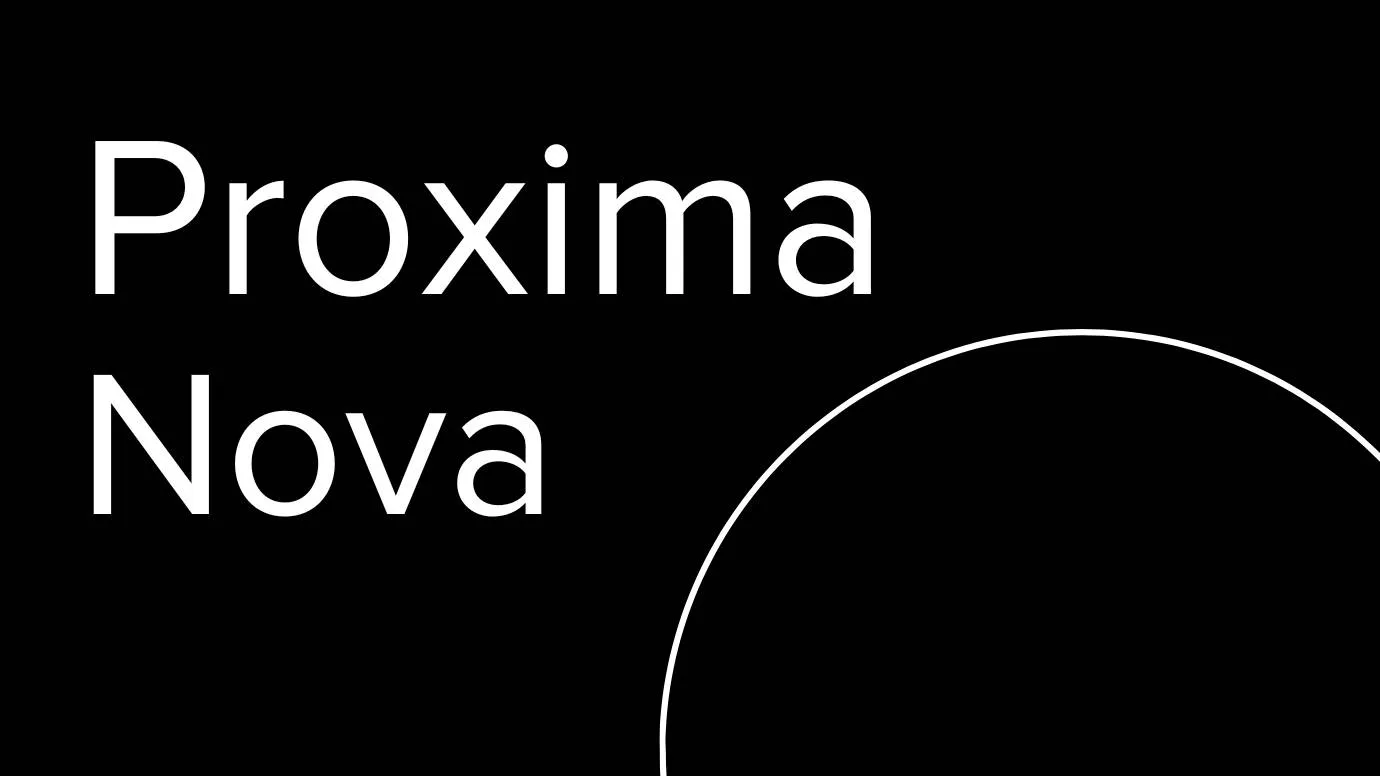
Proxima nova is a sans serif typeface that was designed in 1994 by a typeface designer Mark Simonson. Inatially this font released as Proxima Sans Font.
This is the huge font family that is an absolute re-adjustment of this typeface that was released in the year 1994. . You can use this font with calibri font for designing WordPress plugins.
TypeCustom, Clean, Sans Serif
DesignerMark Simonson